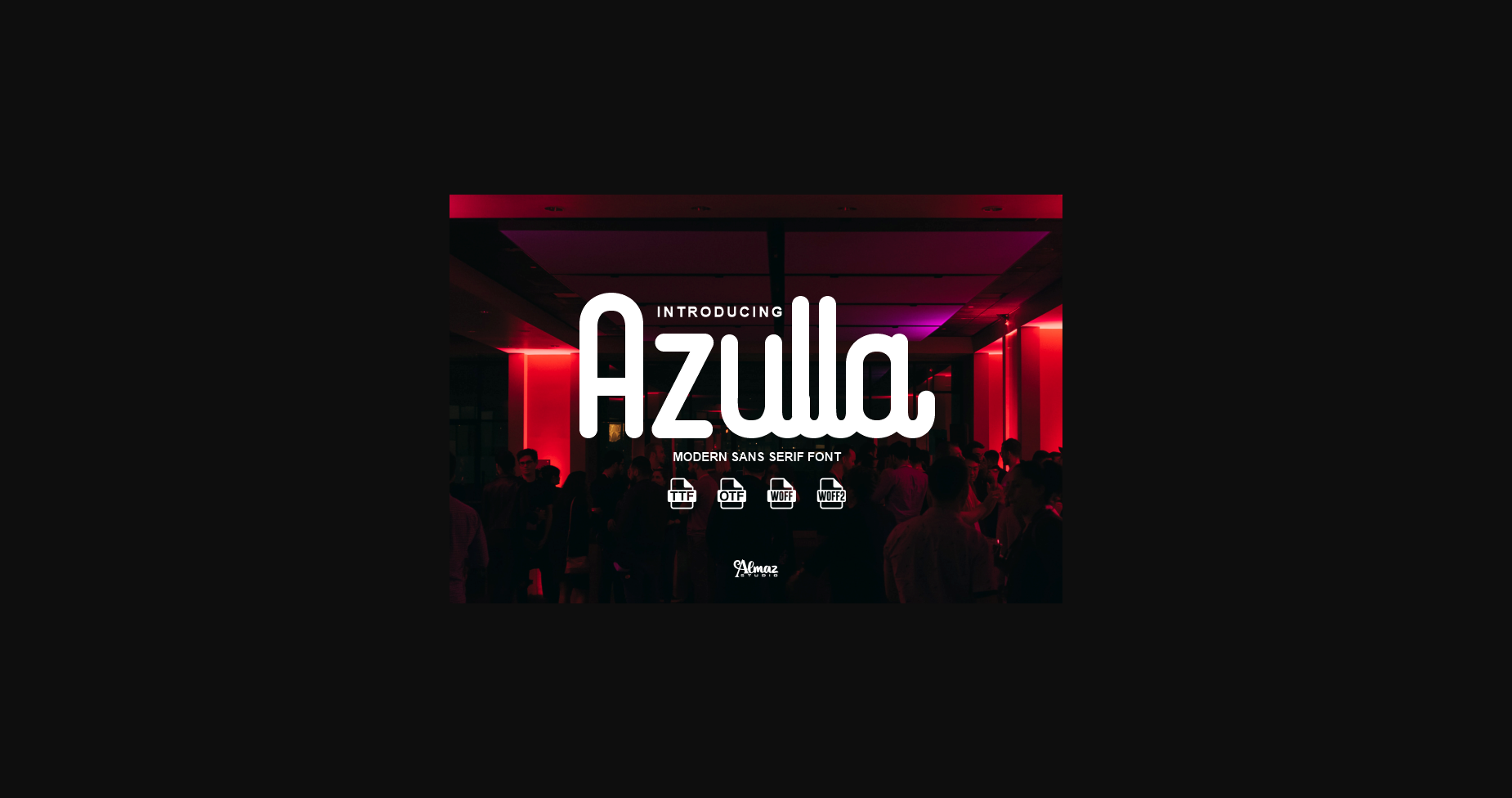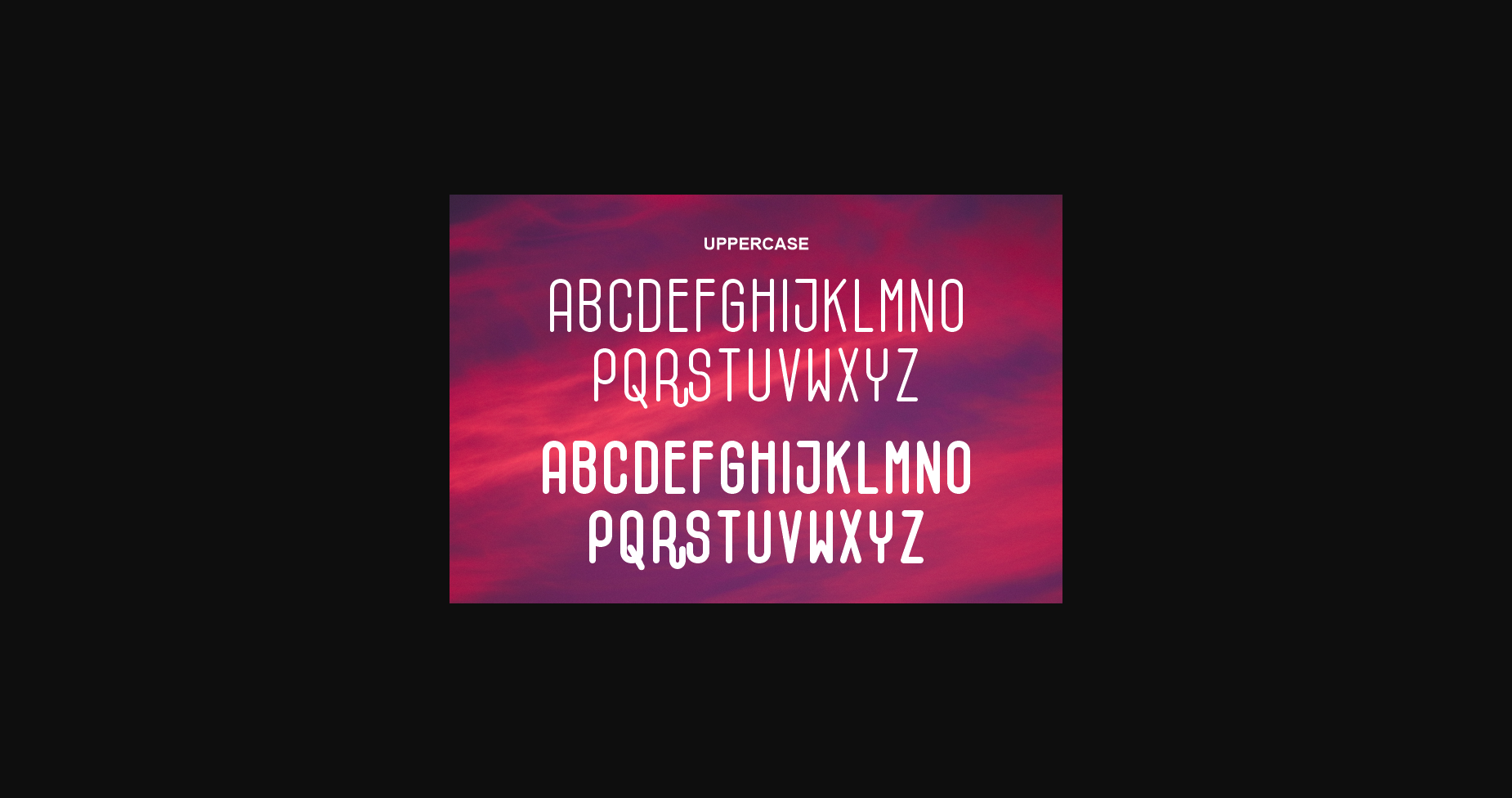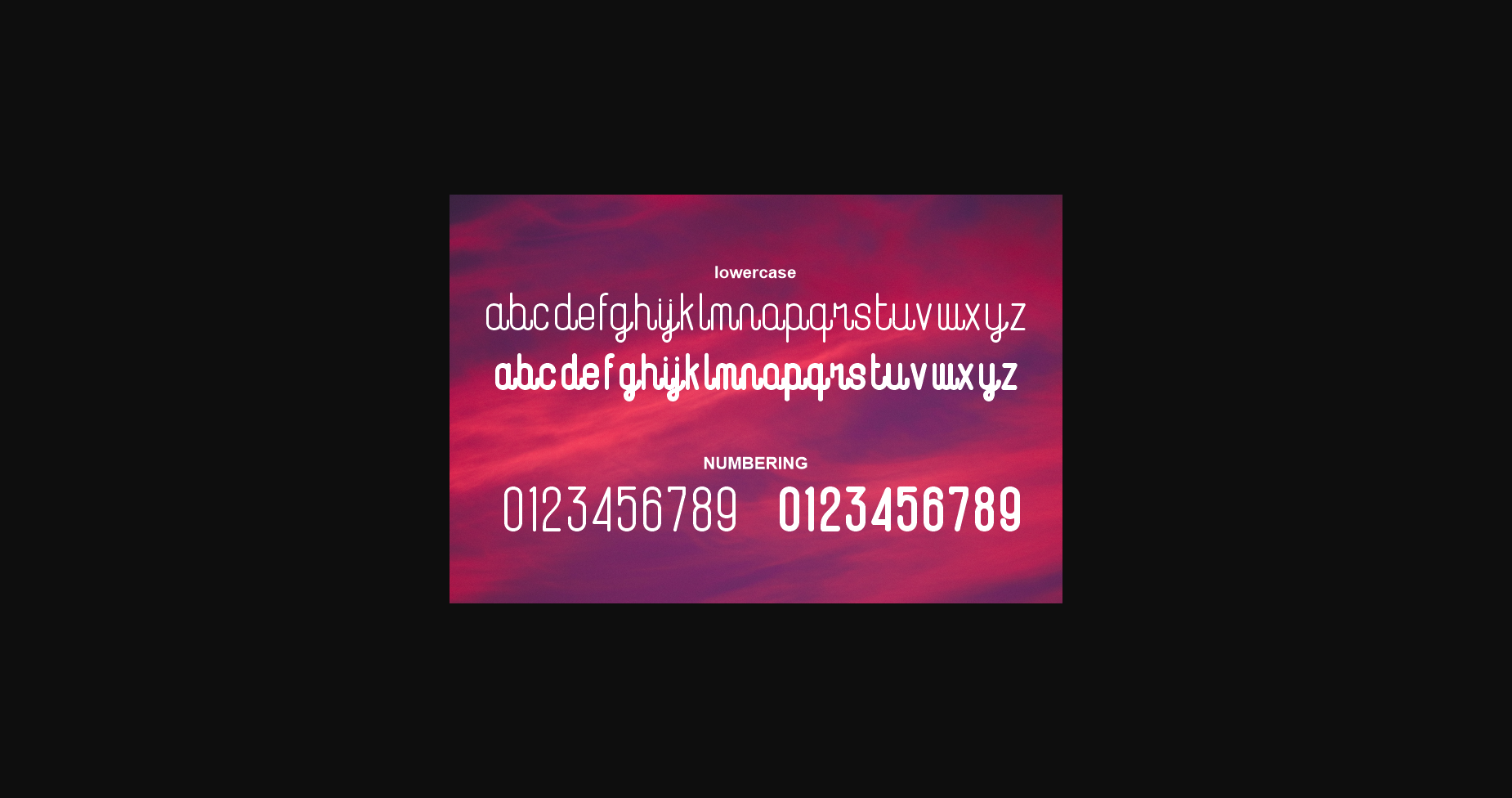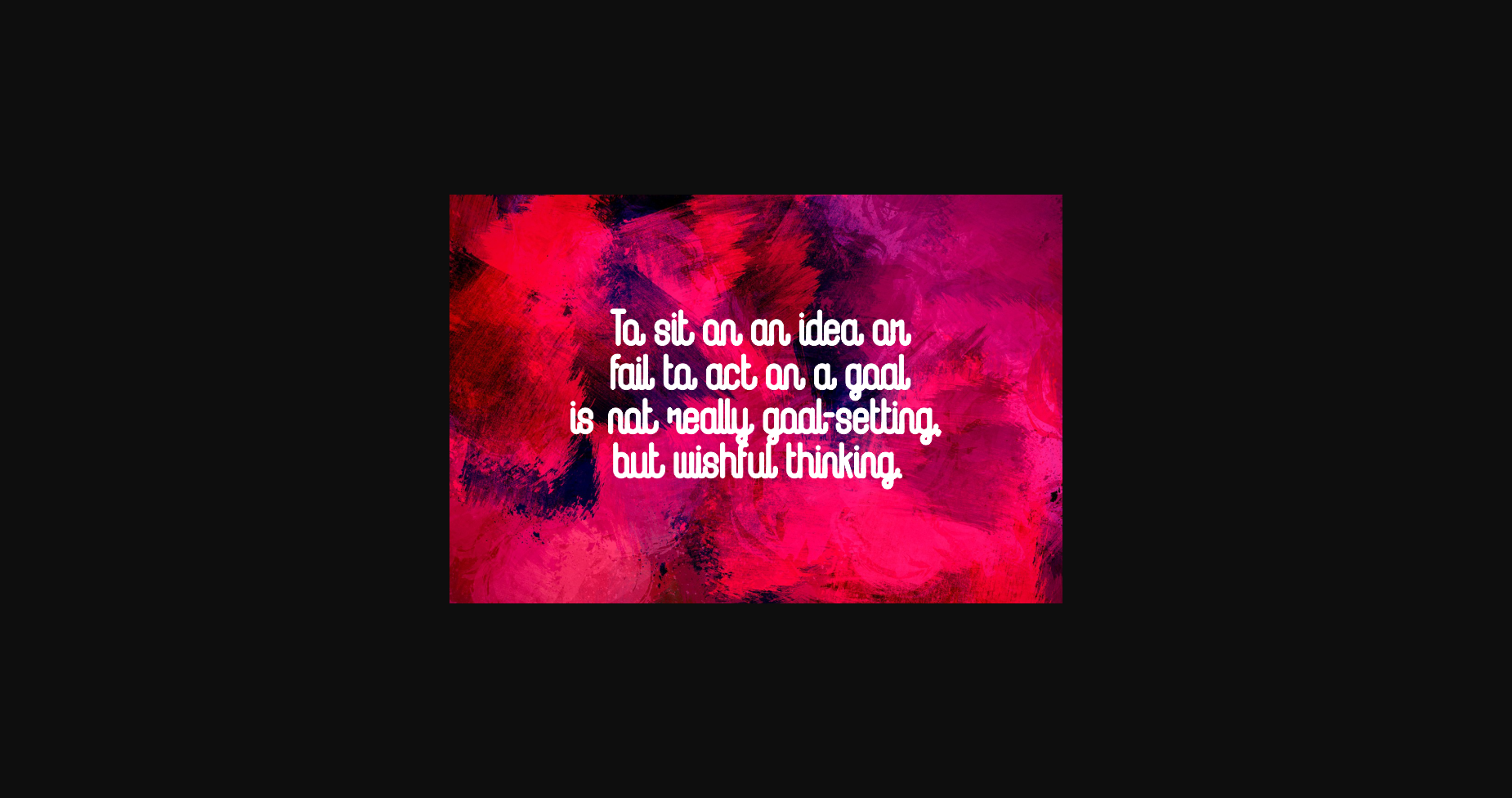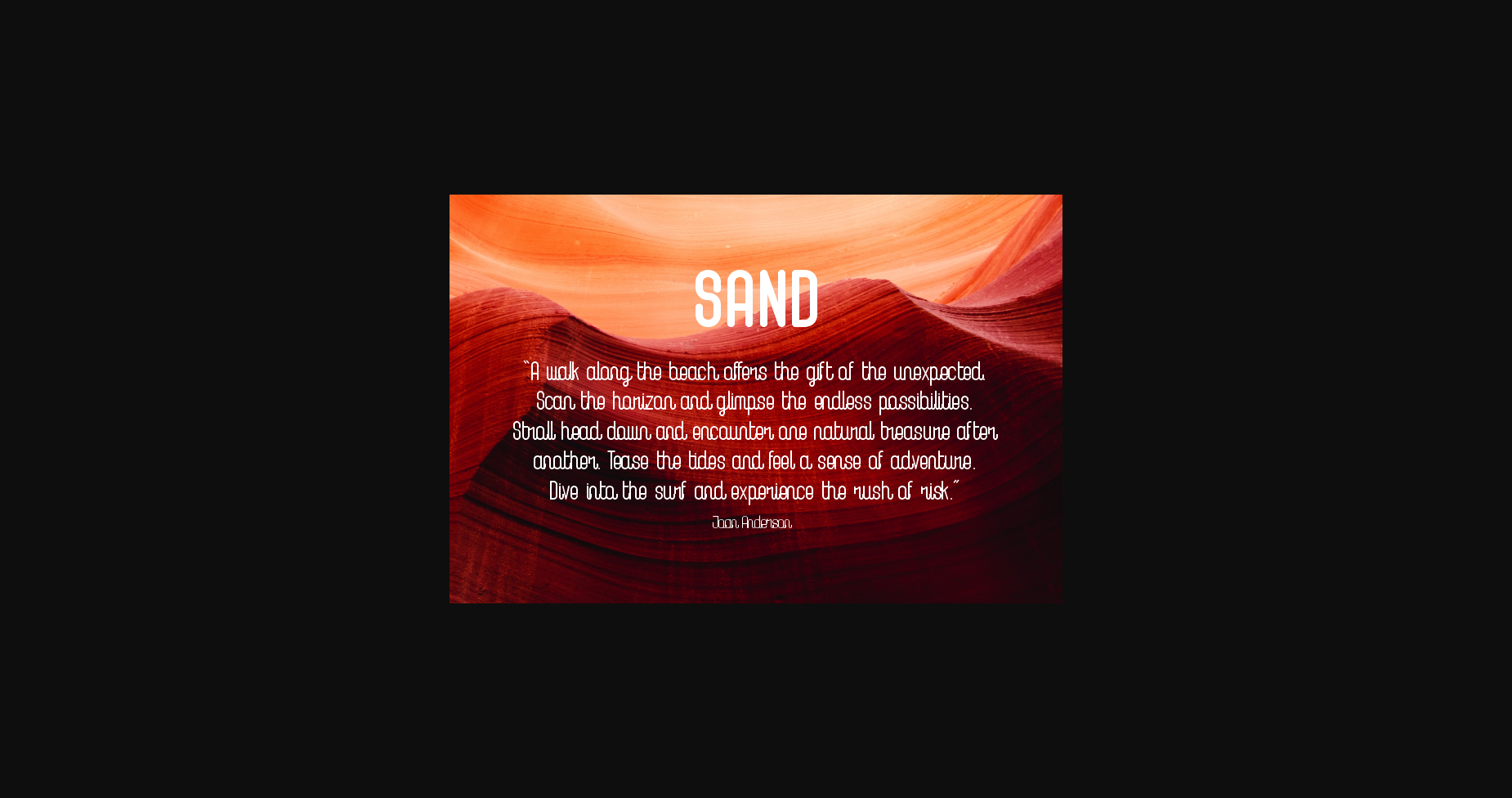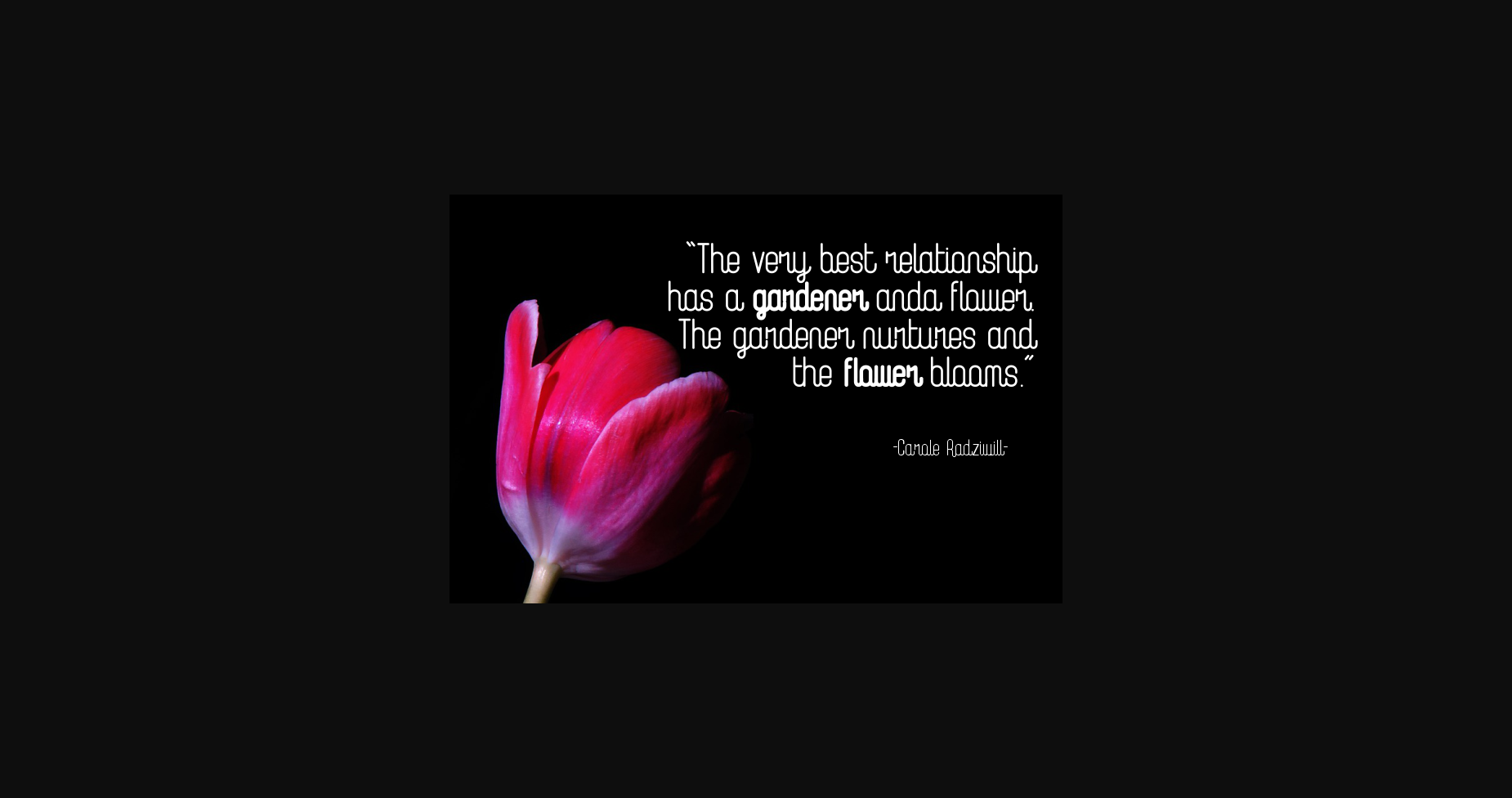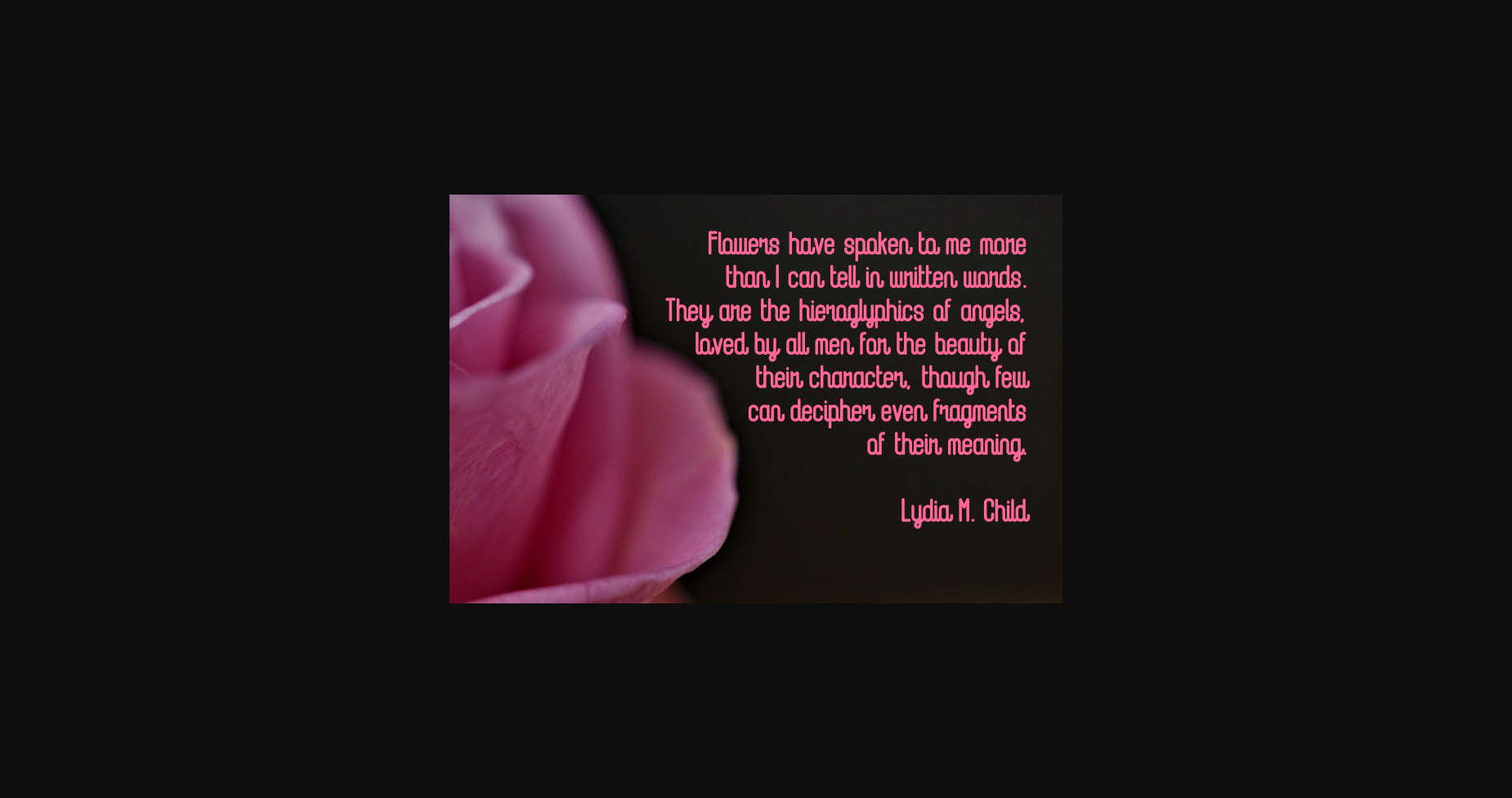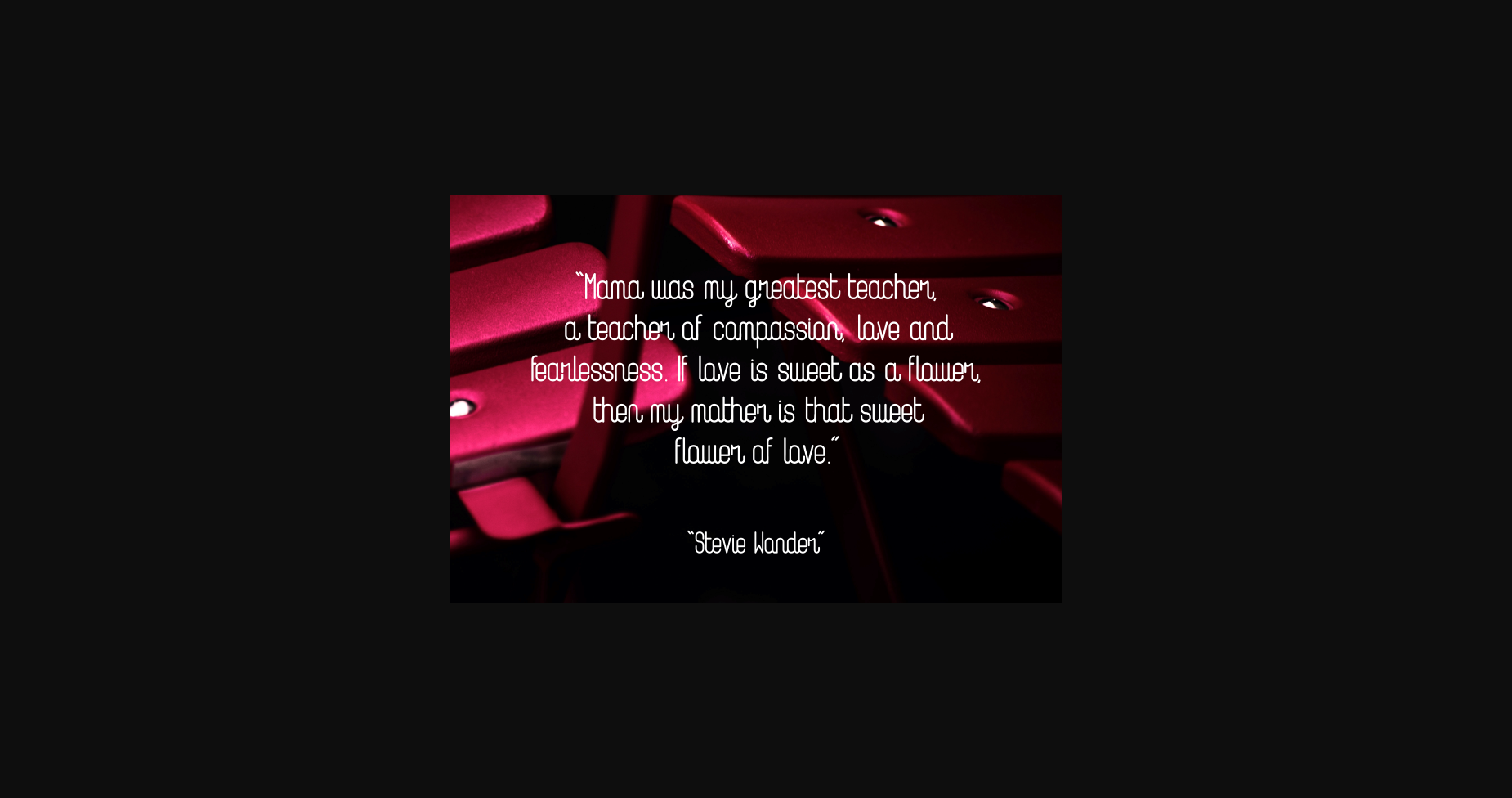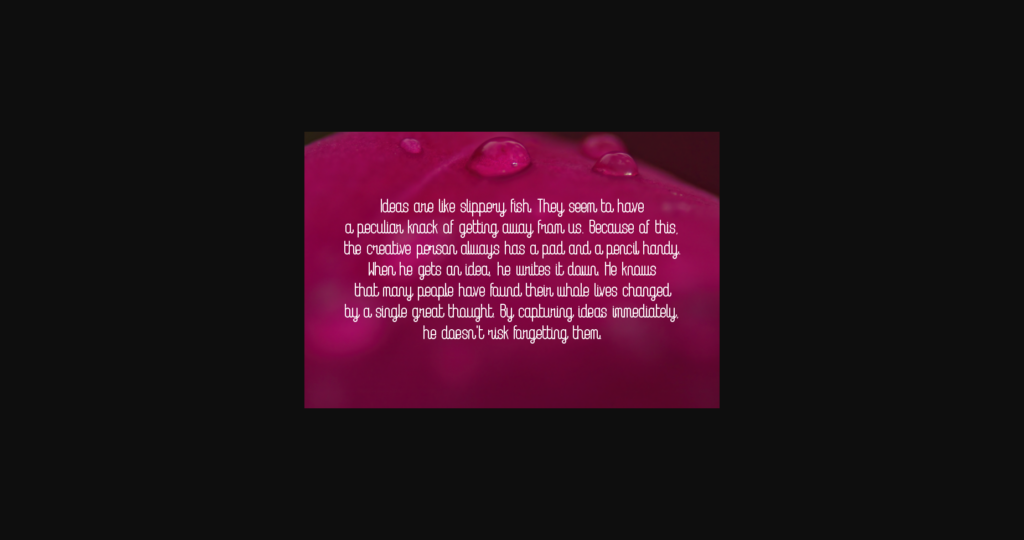
Azulla Font
About Azulla Font
Azulla is a handwritten simple fonts are font designs that are made for various vector designs. Perfect for branding, invitation, stationery, wedding designs, social media posts, advertisements, product packaging, product designs, label, photography, watermark, special events, and more. While printing can be used in the field of product clothing, accessories, bags, pins, logos, and many others… so, it can make your product look elegant and attractive, and also Multilingual support!!!